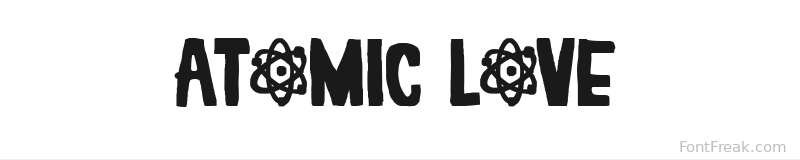
Atomic Love
Atomic Love by woodcutter Manero is a distinctive display font that captures attention with its playful yet bold design. This font features a unique blend of rounded and angular forms, creating a sense of movement and energy that is both contemporary and nostalgic. The stroke weight varies, giving it an organic feel, while the slightly irregular spacing adds a touch of whimsy. Decorative elements, such as the atomic symbol integrated into the letters, enhance its theme and make it visually striking.
Ideal for a variety of creative applications, the Atomic Love font is perfect for wedding invitations where a modern twist is desired, or for movie posters that need to convey a sense of fun and adventure. It also works well in branding for cafes or restaurants aiming for a casual yet stylish vibe, as well as in greeting cards and social media graphics that call for an eye-catching design. Graphic designers, small business owners, and content creators will find this font to be a versatile addition to their toolkit.
The target audience for Atomic Love includes those looking for a font that stands out without overwhelming the message. Its unique character makes it suitable for projects that aim to evoke emotion and connection, aligning well with themes of love and energy.
What sets the Atomic Love font apart is its ability to combine charm with a bold visual presence. The integration of the atomic symbol not only emphasizes its name but also adds a layer of creativity that resonates with modern aesthetics. For those interested in enhancing their design projects, the Atomic Love font free download offers an excellent opportunity to incorporate this dynamic typeface into your work.